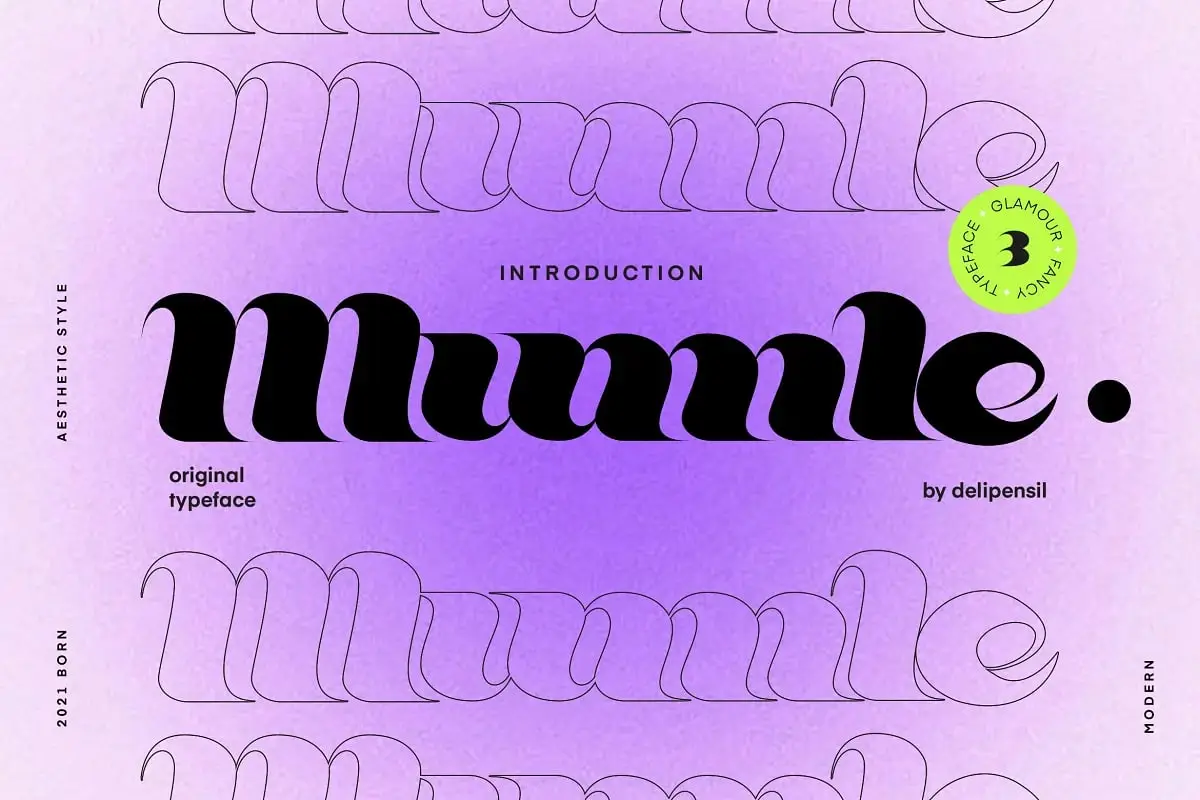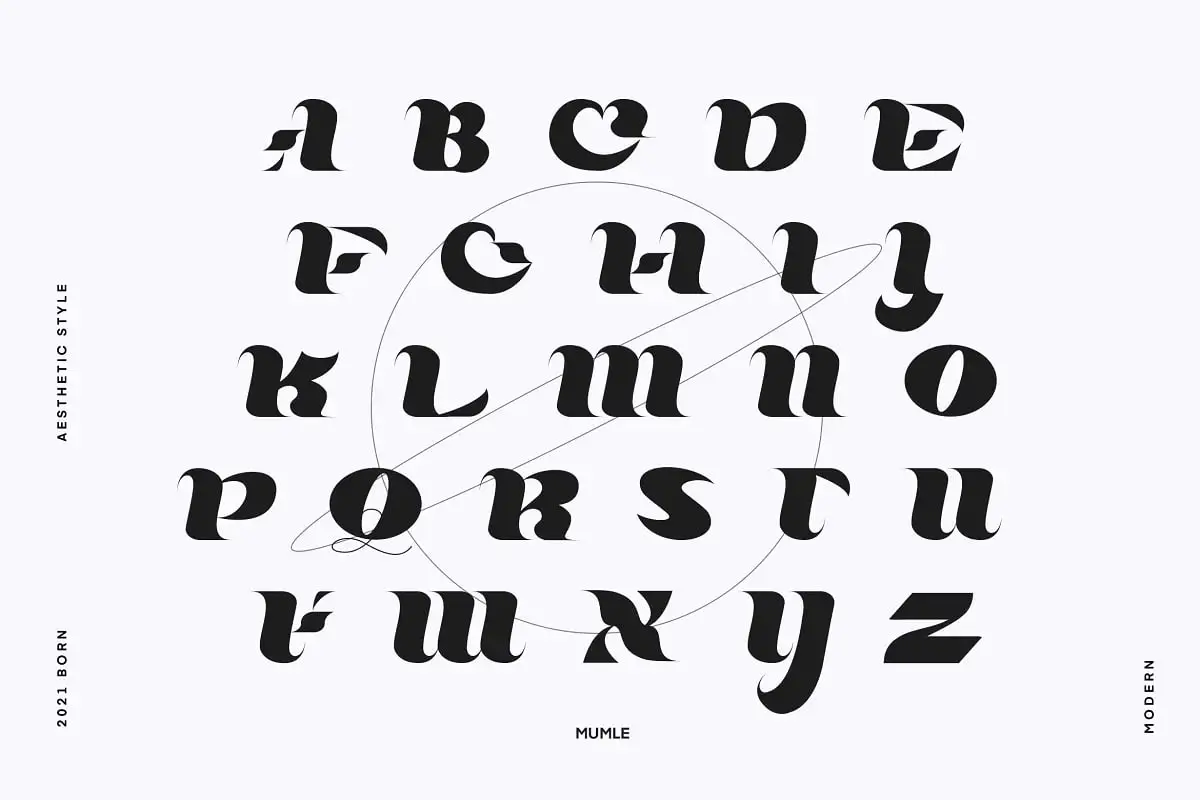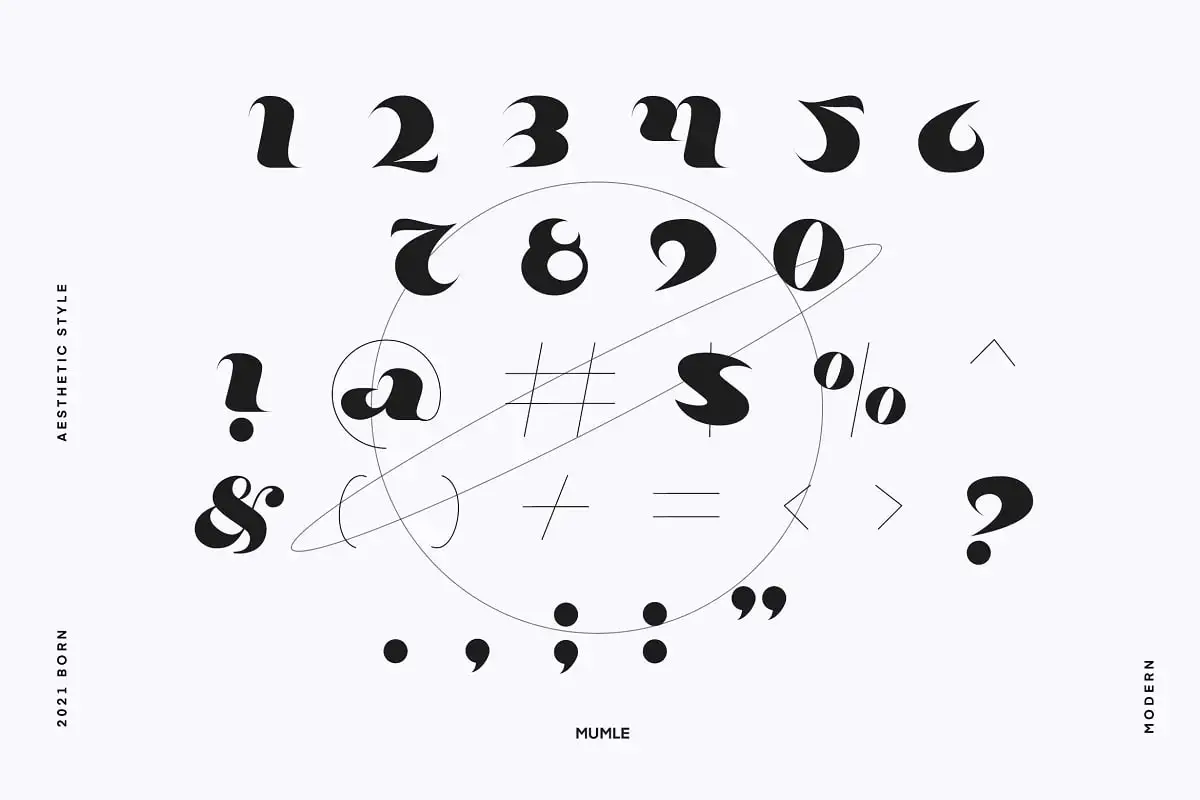
Mumle Font
The Mumle Font is a unique and stylish typeface designed to add a touch of personality to your projects. With its playful curves and modern aesthetic, this font is perfect for a variety of applications, from branding to digital content.
• Stylish and modern design
• Available in multiple weights
• Ideal for branding, logos, and signage
• Great for web and print applications
• Use in UI design for a modern touch